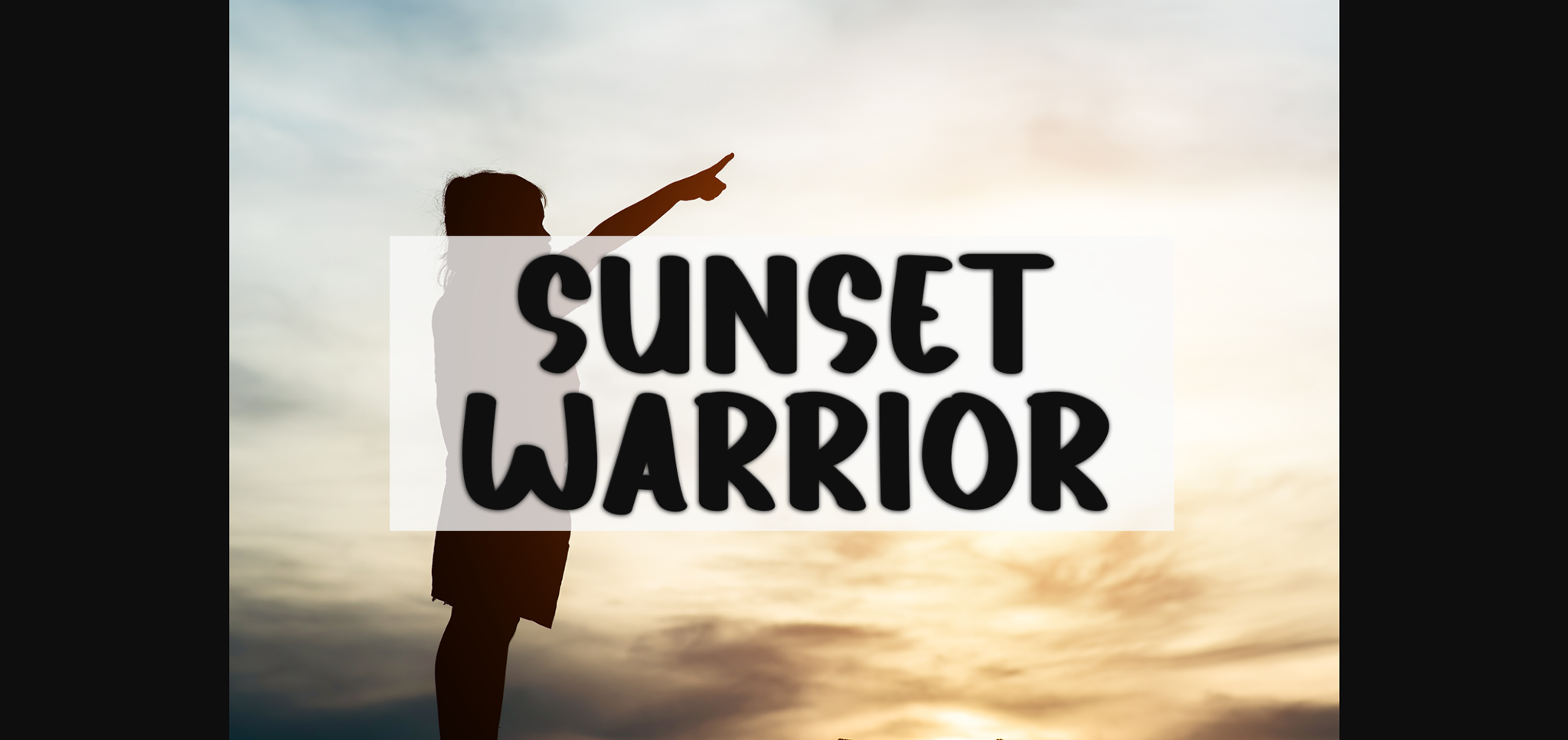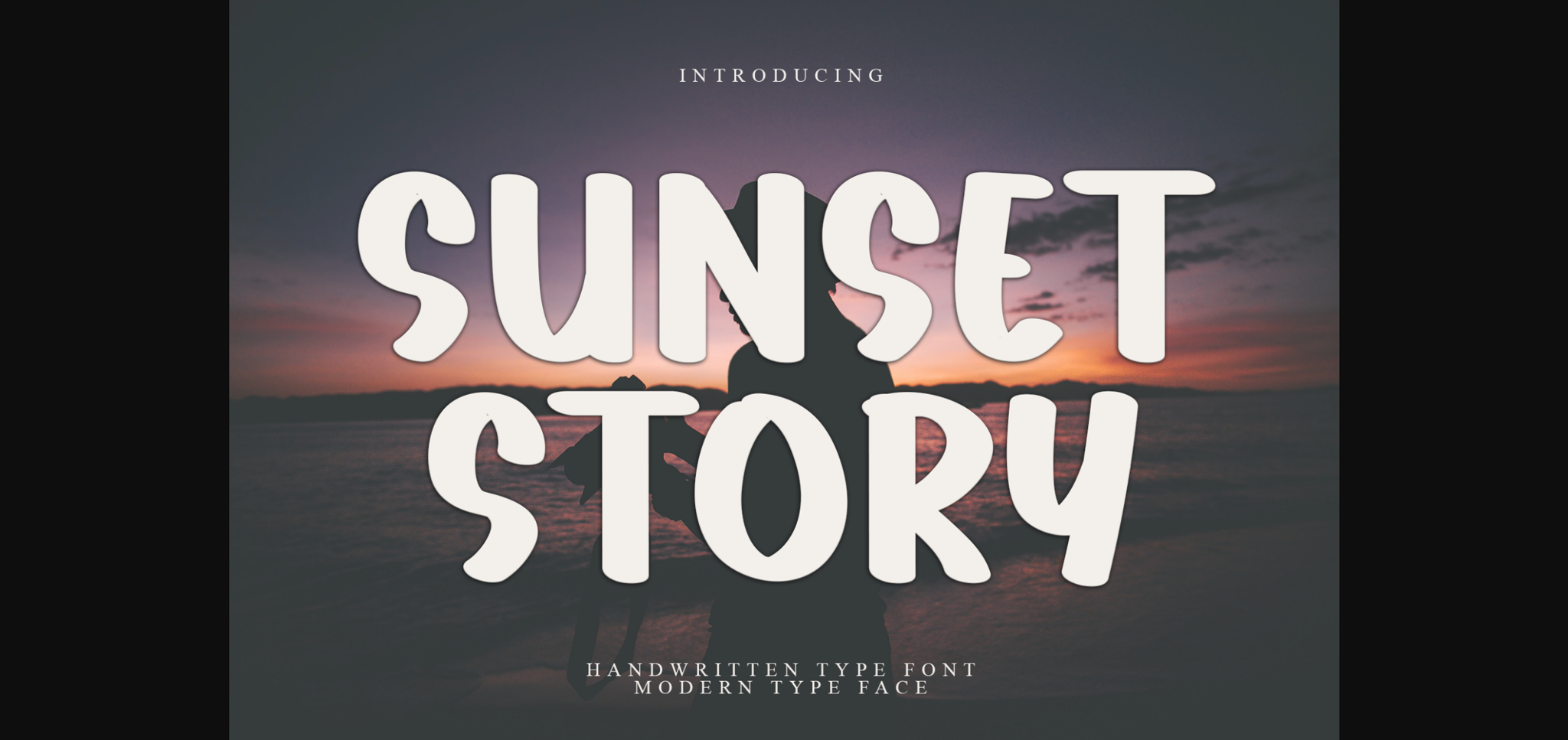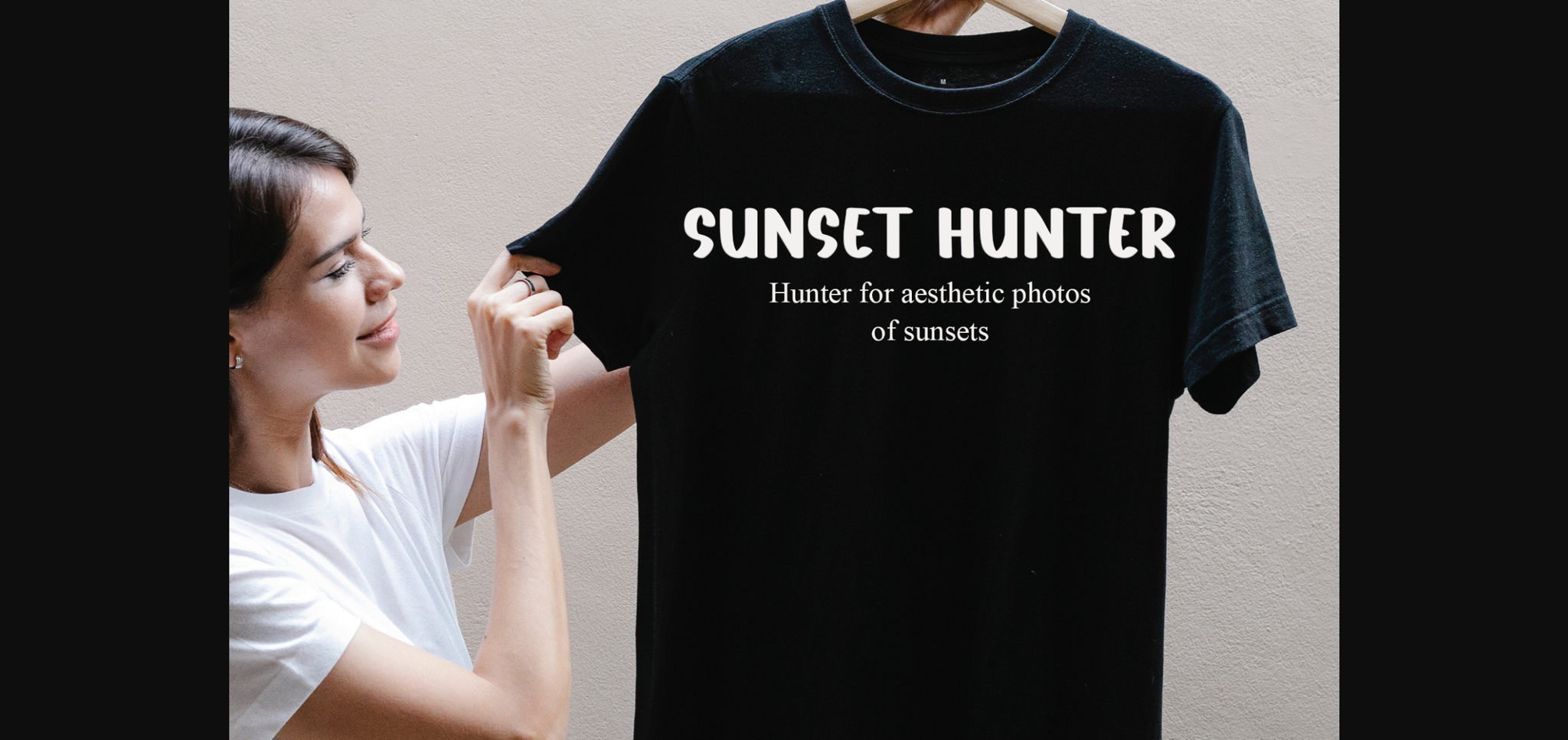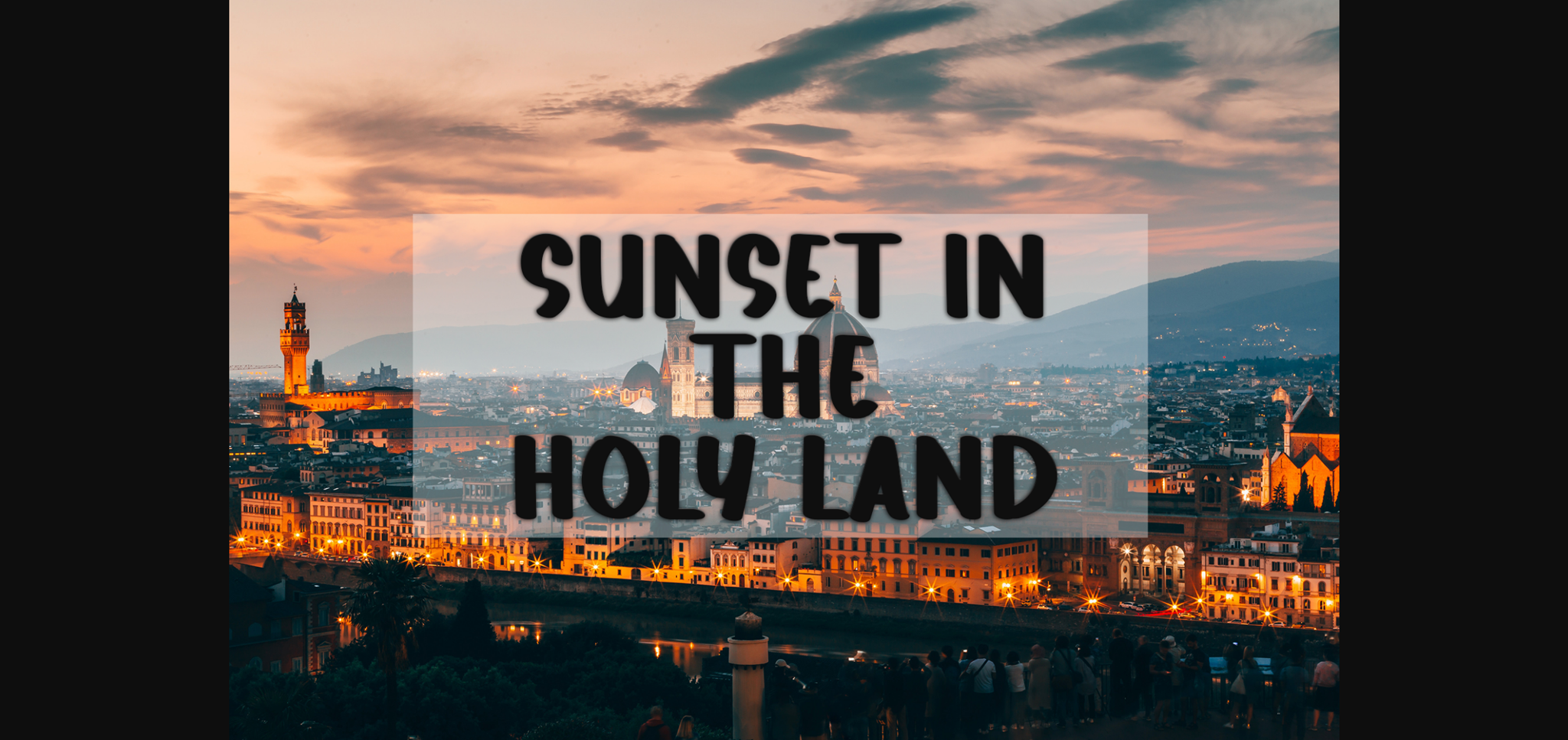
Sunset Story Font
About Sunset Story Font
Sunset Story is a stylish sans-serif font that epitomizes the expressive beauty of brush lettering. With confident strokes and dynamic letterforms, it achieves a perfect blend of modernity and artistic flair. Ideal for projects seeking a bold and contemporary handwritten aesthetic, Sunset Story adds a touch of expressive elegance to your designs.